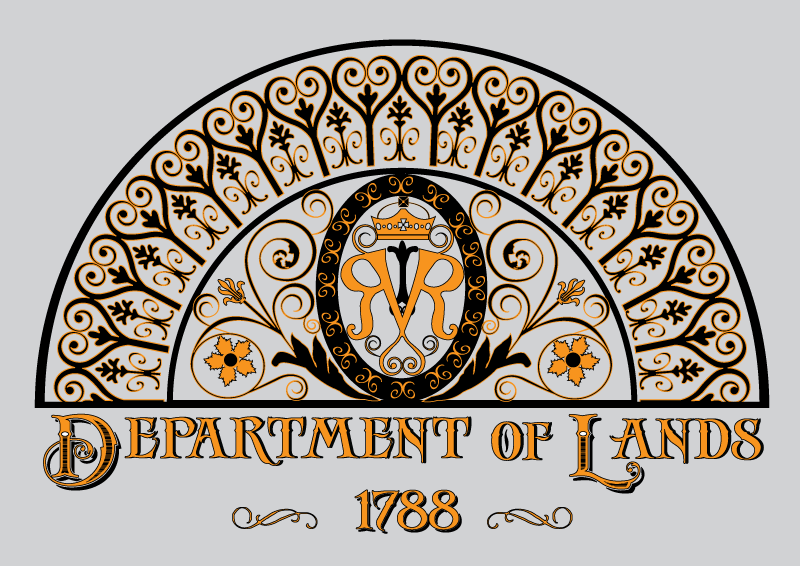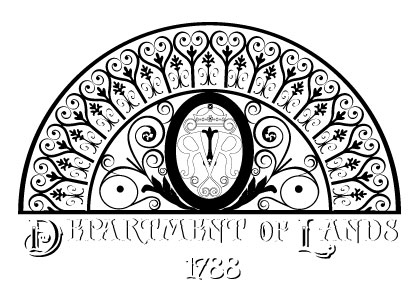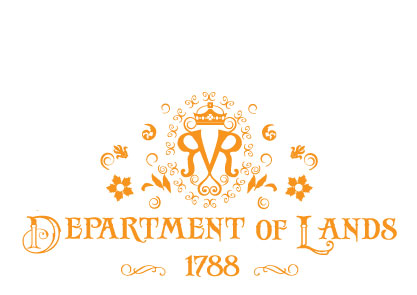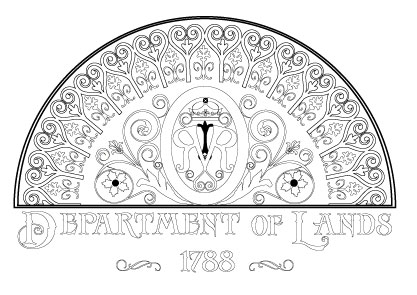
I'm about to go-ahead and do another mirror. This is a design I did for the dept. I work for however, since I started this design which was to be used on a web-site the government have decided to rename us. So rather than waste my artwork I thought I'd turn it into a mirror.
I am thinking of using Galena and gold for the iron work and silver for the background.
Process.
1. pour gold and screen-print
2. pour galena and print again
3. pour silver and back-up.
do you think this is the correct order?
Hi Megan, I like your design to start off. I would rethink your choice of materials though. The issue your going to have is having all those reflective finishes next to each other. Espeacially the gold and silver. You won't see a defference between them. I would suggest adding some painted areas or matt gilding to separate mirroring. Do a sample with all three next to each other and you will see what Im talking about.
Meagan,
Have you had good luck "pouring" multiple golds? I assume you are talking about some version of Angel Gilding?
Before committing to a large piece like this, I'd experiment on a very small piece.
Why?
A: Each of the three steps you are talking about requires a VERY clean area of glass.
B: Cleaning can require some serious scrubbing.
C: Each of the steps requires immersing the glass with a solution, possibly several times.
I mirror ink is not very tough. None of them like being immersed, even after curing. None of the inks are particularly tough and don't stand up to a lot of additional scrubbing.
Test first!
Great design...really love it. It seems to echo cast iron lacework. Was that in your mind when you designed it?
Really good points by both Rod and Mike.
Personally, I think I'd be inclined to do the black areas in....plain old black...I know it may sound too obvious, but in fact, it will give you the maximum contrast and provides the base and the strength for the gold and silver to really sing.
I'd probably also use a matt finish for some of the areas of gold...and I'd also find it hard to resist adding some special little feature in those ovals in the letters "D" and "L". (although maybe I could, because in fact, they don't need to me made into a focal point)
Oh...one tiny little criticism...the scrolls on either side of 1788 look like they are on the wrong sides to me. I want to swap them around. hahaha
I've added a breakdown of the colours for your viewing.
Roderick, I took the suggestion on board and removed any gold outlines and changed them to black. Some of the gold areas Ive lightly sandblasted the glass for so as to give it a grainy effect.
Mike, the ink I use is a 2 pack epoxy and is tough as old nails I screen the design onto the glass and then bake it for 10 mins in a 110 degrees Celsius oven, then I can do any thing to it and it holds up fine.
Bruce, the design comes from the front of one of Sydney's oldest buildings (built in 1819) ironwork. I was creating a new website for the Department of Lands however the name of our department changed and so did the design of the website. I hated not using it so I thought it would look pretty cool above my desk in glass. Funny you should point the 1788 scrolls out - I had always thought that they were on the wrong sides I wonder it the lacky who did the ironwork thought that at the time?